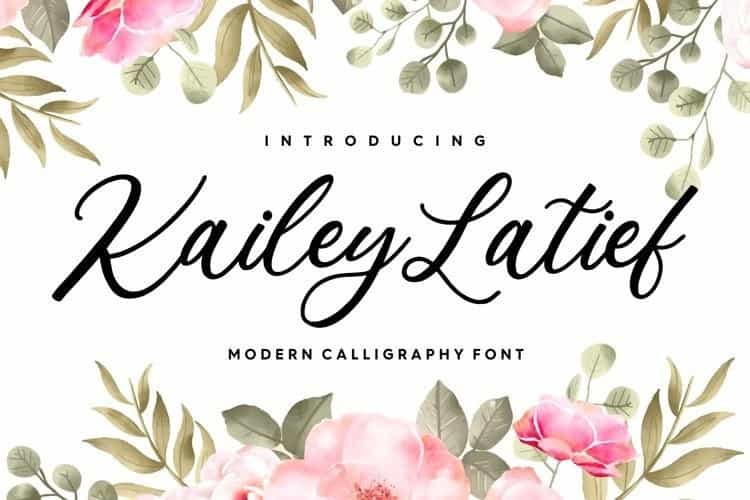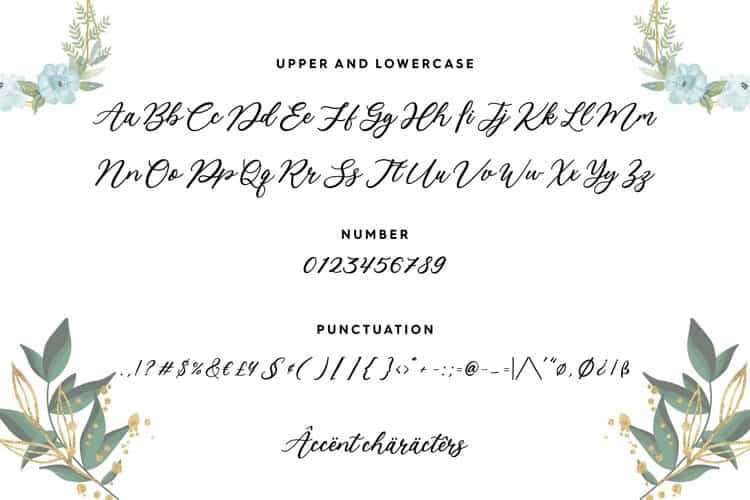
Discover Kailey Latief Modern Calligraphy Font, part of the Calligraphy collection—a versatile and unique font perfect for adding a personal touch to your projects. Download it for free and enjoy crafting designs with style, from invitations to social media posts. This font is available exclusively for personal use, giving you the freedom to create without limits. Unlock your creativity with Kailey Latief Modern Calligraphy Font today!
Crafted with care the Kailey Latief Modern Calligraphy Font features a contrast, between thick and thin strokes aiming to lend a touch of sensuality, elegance and warmth even to the simplest sans serif letters. Kailey Latief font is versatile for applications such as product packaging, branding initiatives, magazines, social media posts, weddings or any context where you want to make a statement against the backdrop. With both TTF and OTF file formats available along with support.